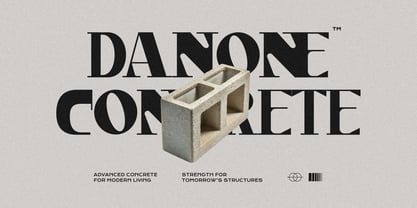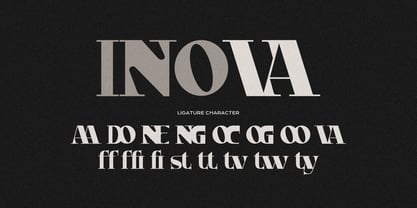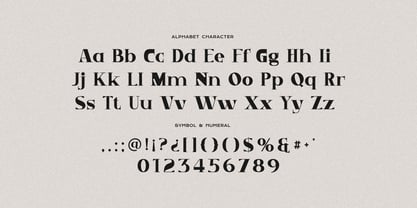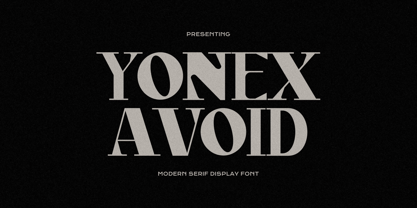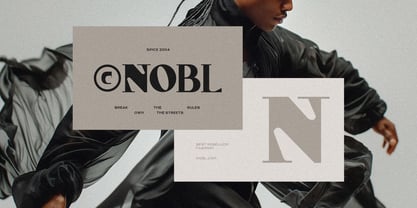
Yonex Avoid
by Imoodev
The Yonex Avoid Font Family was designed by Aulia Savira Putri and published by Imoodev. Yonex Avoid contains 1 styles. More about this family
Yonex Avoid is a bold serif font that harmoniously blends traditional serif elements with contemporary flair, highlighted by strong vertical geometric forms and striking thick to thin transitions. Its unique details on terminals and joints add a dynamic yet elegant touch. This font is perfect for luxury branding, editorial headlines, fashion campaigns, art deco, magazine, editorial, modern branding with an urban, rebellious edge, branding that aims to communicate robustness, reliability, and sophistication, modern packaging, advertising materials. Ideal for big titles, branding, editorial design, packaging, fashion, industrial, architectural, and creative branding sectors.
Designers: Aulia Savira Putri
Current Foundry: Imoodev